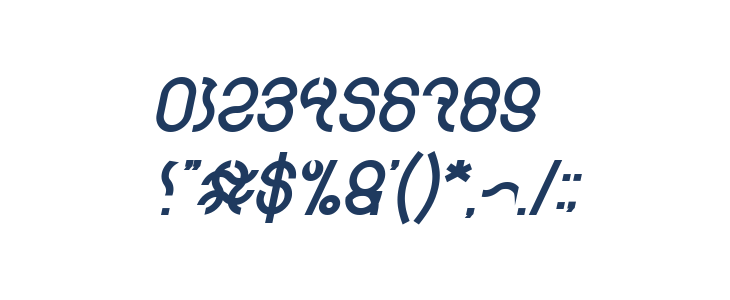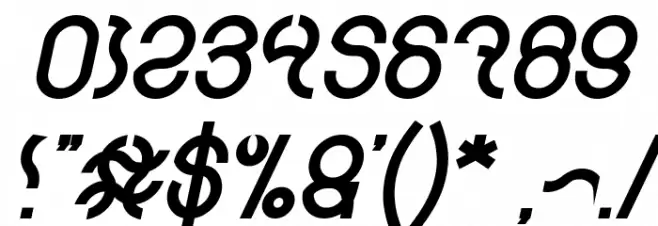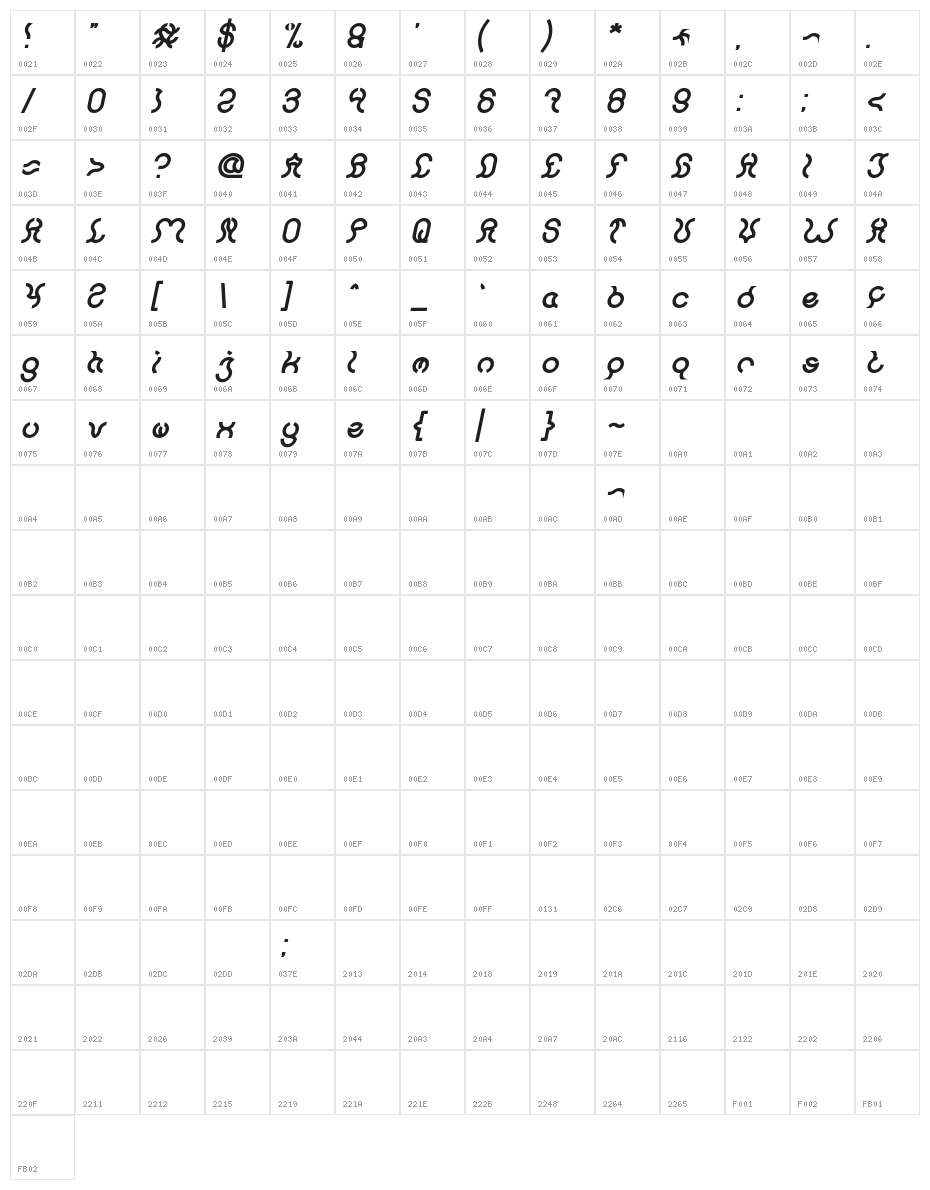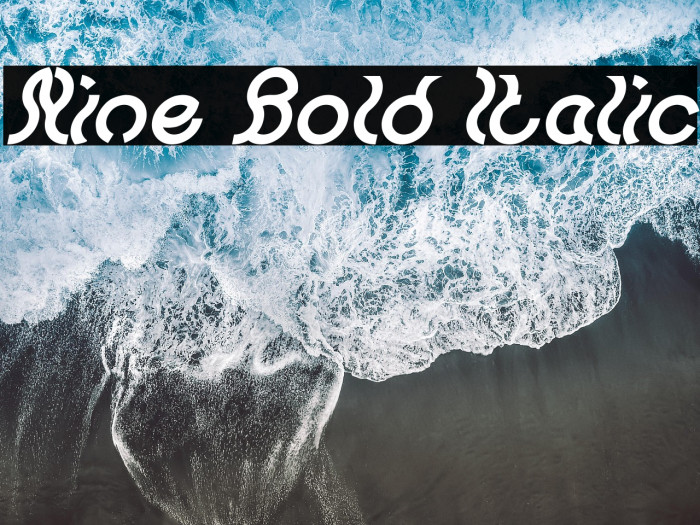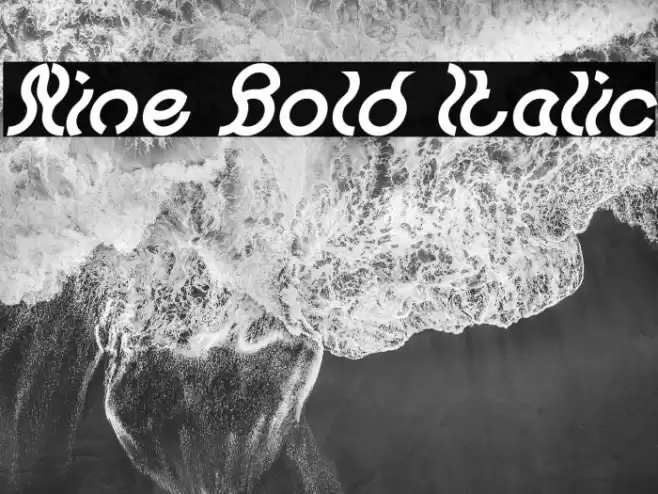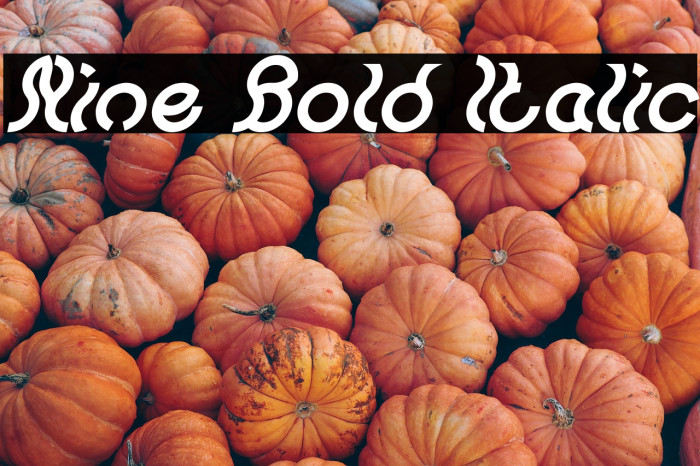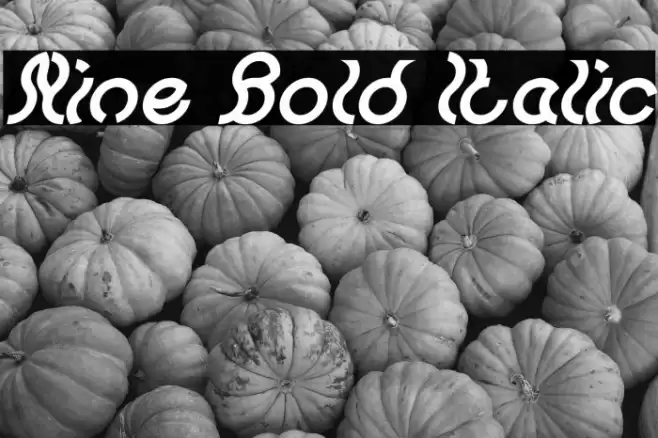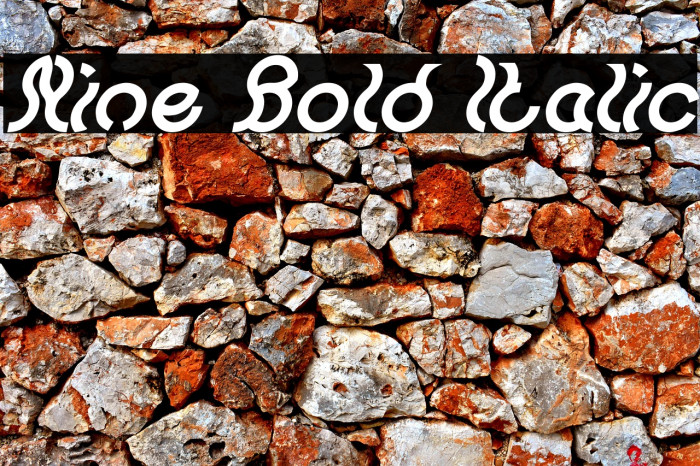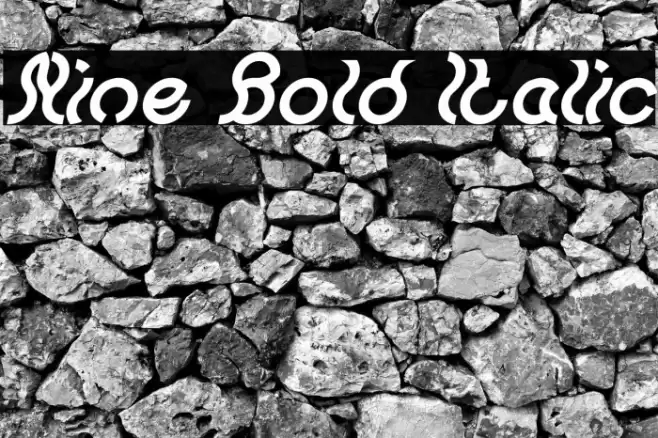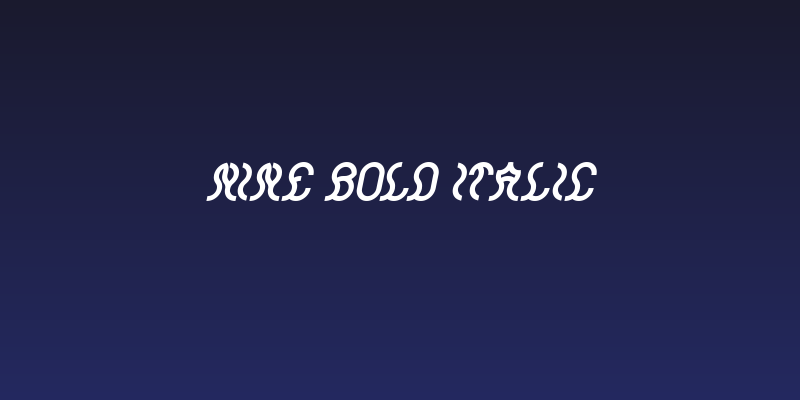
Nine Bold Italic Font
Nine Bold Italic Description
This font exhibits a bold and italicized style with a unique, decorative flair. The characters are heavily stylized, featuring dramatic curves and swirls that give it a distinct, artistic appearance. The uppercase and lowercase letters maintain a consistent design theme, with exaggerated serifs and flowing lines that create a sense of movement. The numbers and special characters follow the same ornate style, ensuring a cohesive look across all elements. This font's boldness and intricate design make it stand out, capturing attention with its elaborate and expressive form.